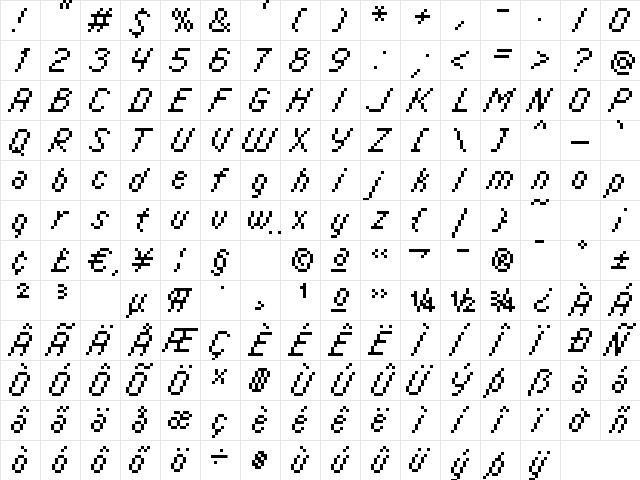
italic 08_55 Regular
Design Context for italic 08_55 Typeface
italic 08_55 is a composed and adaptable typeface that performs quietly and consistently across a wide range of design contexts. Its italic angle brings a sense of urgency and motion to the letterforms.
Pro Tip: Use italic 08_55 for emphasis, pull quotes, and subheadings where its slanted energy can add rhythm to the layout.